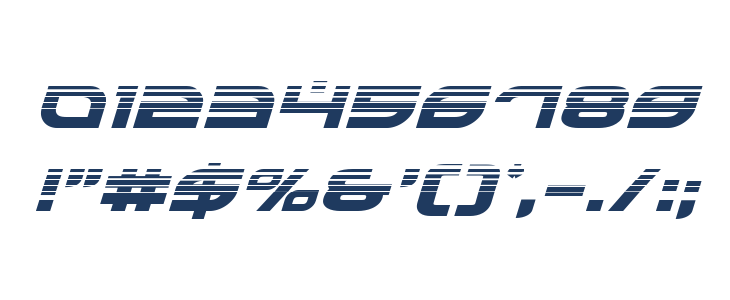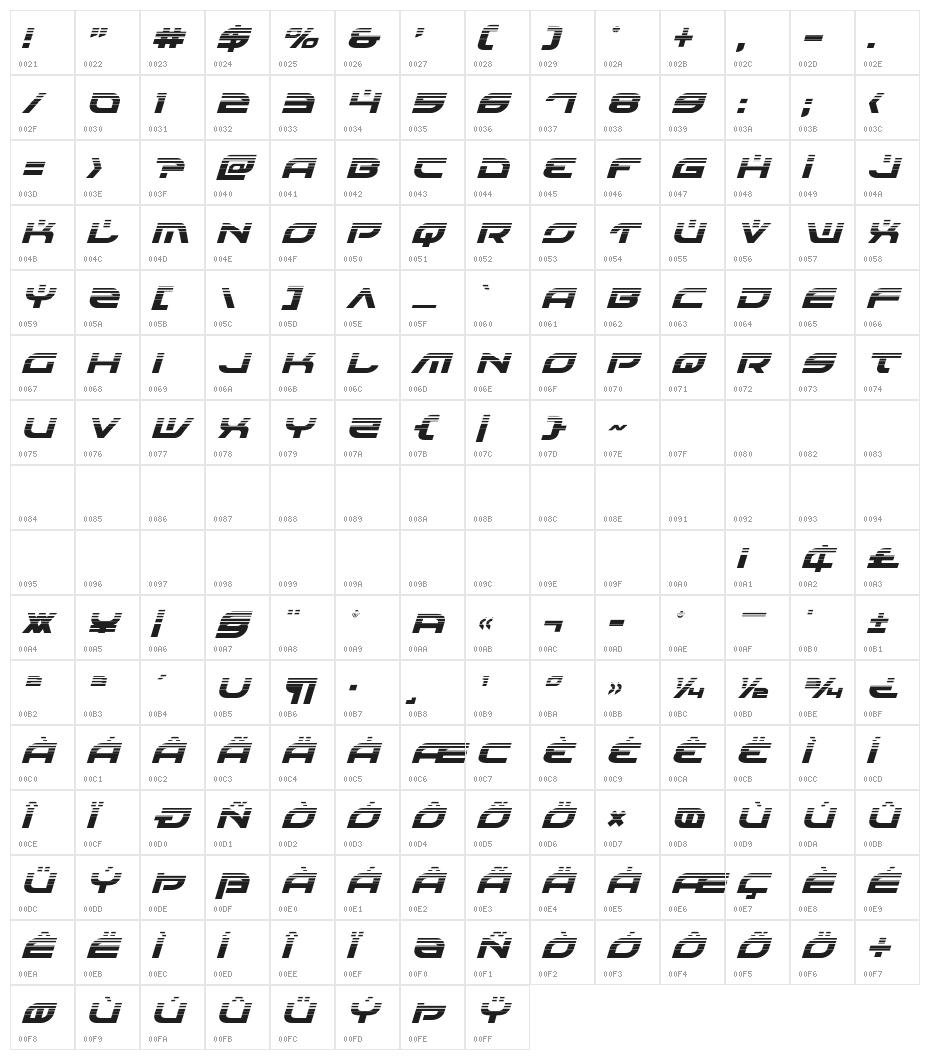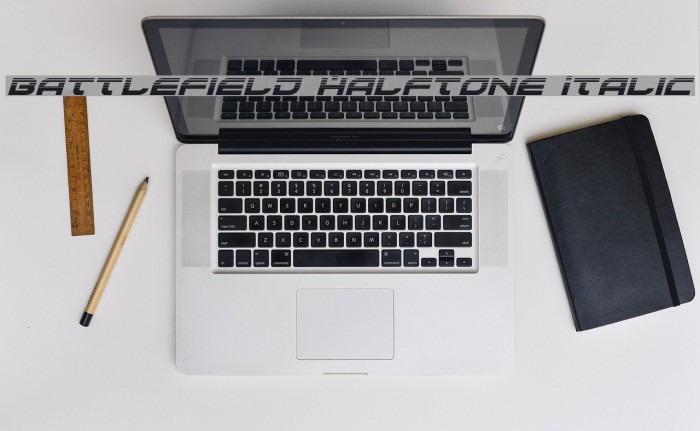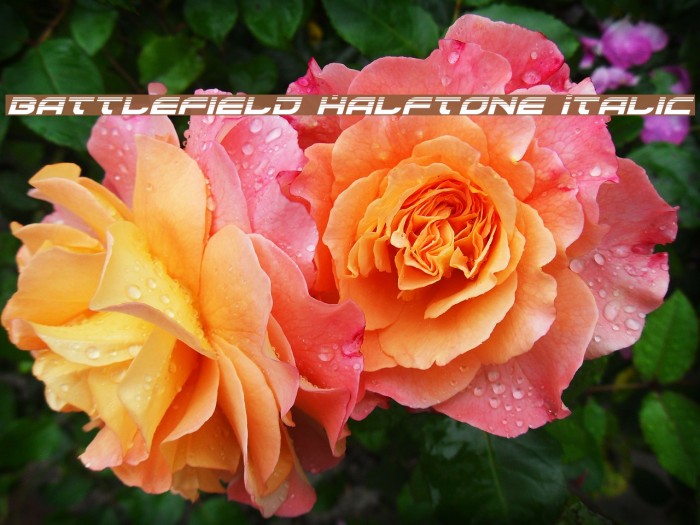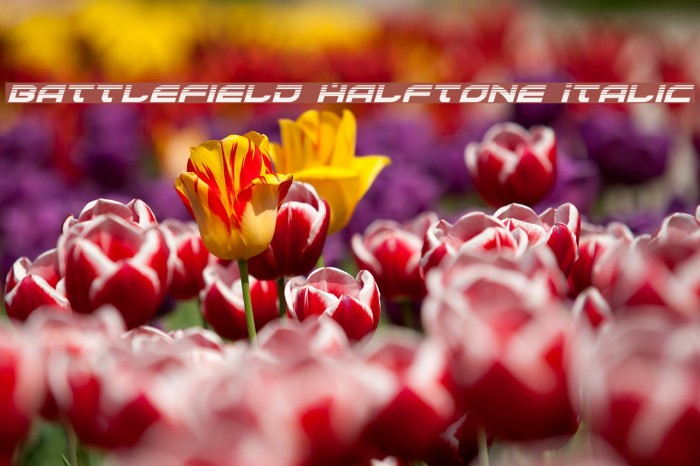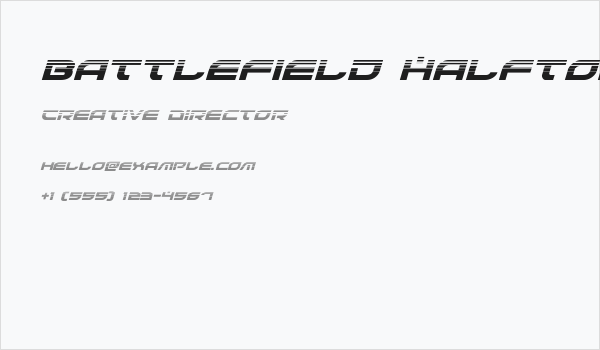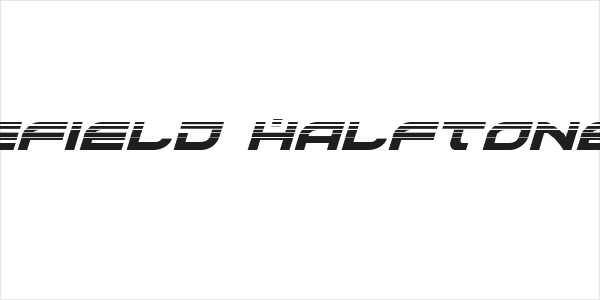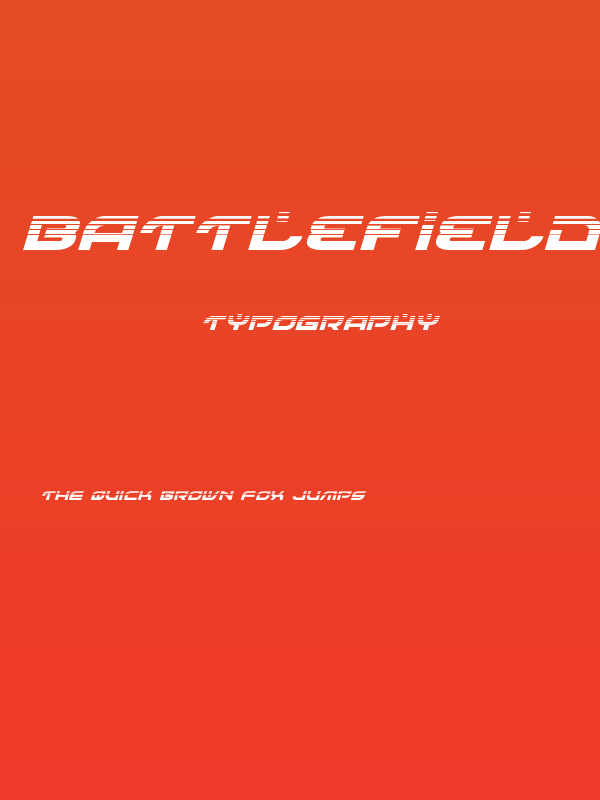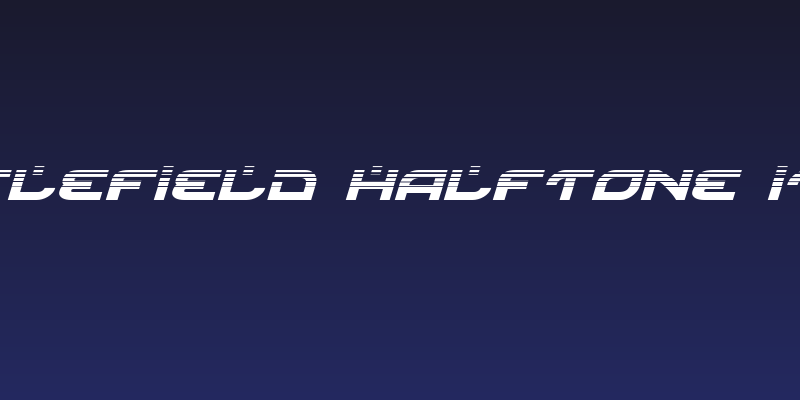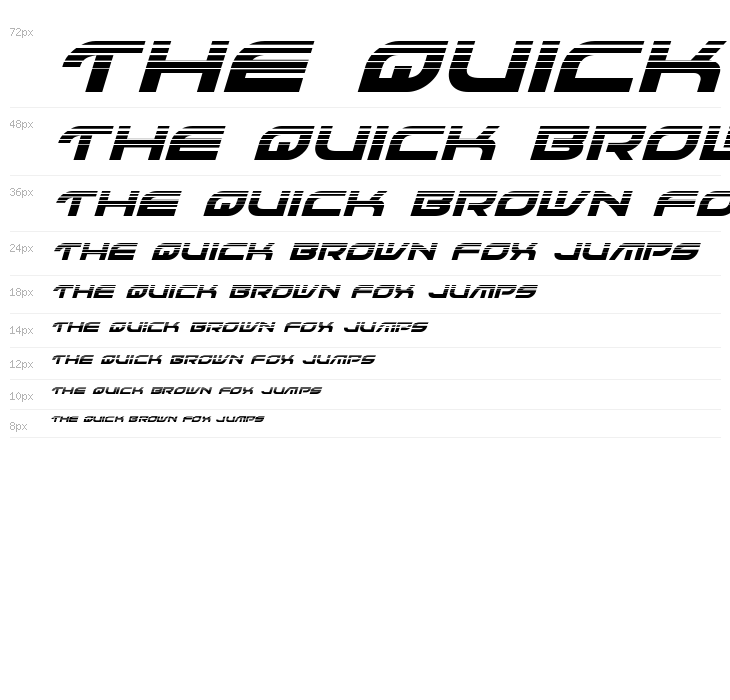
Battlefield Halftone Italic Font
Battlefield Halftone Italic Description
This font features a bold, futuristic design with a halftone effect that gives it a dynamic and energetic appearance. The italicized letters add a sense of motion, making it ideal for projects that require a modern and edgy look. The characters are constructed with a series of horizontal lines, creating a unique texture that stands out. The uppercase and lowercase letters maintain a consistent style, while the numbers and special characters complement the overall aesthetic. This font is perfect for creating eye-catching headlines, posters, and branding materials that need a strong visual impact.
| Proposed Projects | Ideal for futuristic branding, sci-fi posters, video game titles, and dynamic advertising campaigns. |